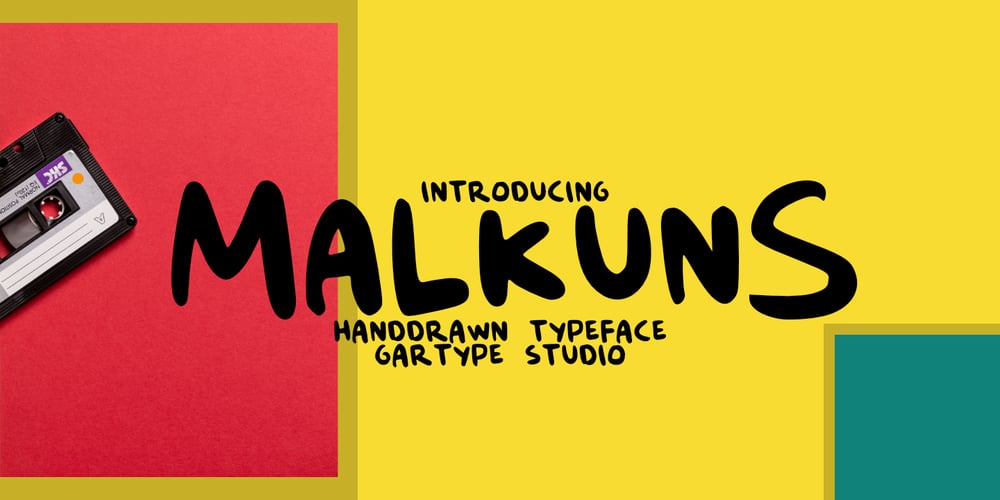
Malkuns
Malkuns font
Malkuns Font Family was designed by Gumilang Anggara Ruslan and published by Gartype Studio. Malkuns contains 1 styles and family package options. Hello buddy ! This time we will introduce to you Malin Kundang ! Malin Kundang comes with a lot of Alternate to make your design more cool and of course come with Multilingual characters.This Font that are suitable for many of your needs such as book covers, titles, logos, letterheads, quotes, posters, etc